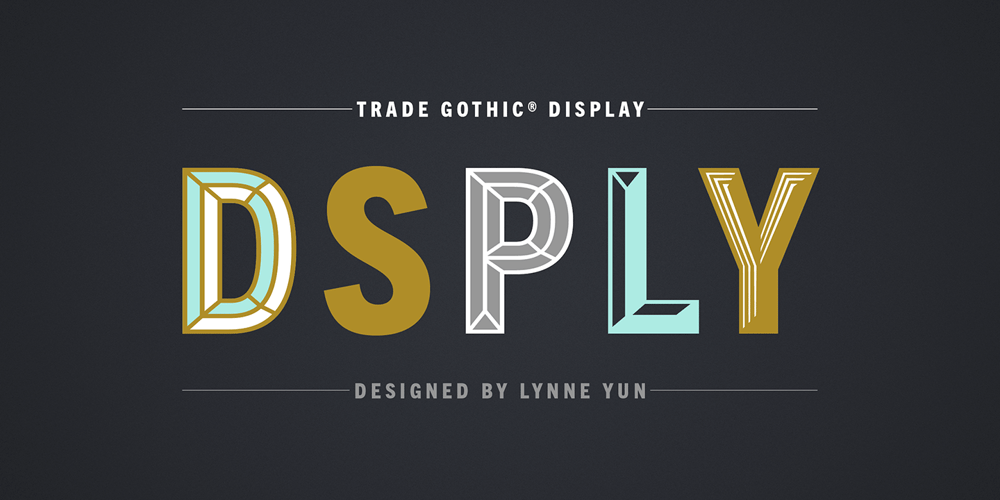
Trade Gothic Display
Trade Gothic Display font
Trade Gothic Display Font Family was designed by Jackson Burke, Lynne Yun and published by Monotype. Trade Gothic Display contains 5 styles and family package options. It’s a colorful world. Don’t limit yourself to black and white. The Trade Gothic® Display designs take advantage of color to create lively and compelling statements, making the designs ideal for advertising, branding, poster and publication projects. Based on the powerful Trade Gothic Condensed Heavy typeface, Monotype Studio designer Lynne Yun, created the fonts necessary to set both “beveled” and “embossed” characters in any color. Trade Gothic Display 1 (embossed) generates striking highlighted type, while Trade Gothic Display 2 (bevel) produces powerful shadow and outline effects. The designs are natural additions to the Trade Gothic Next family, and stand on their own as formidable display typefaces.